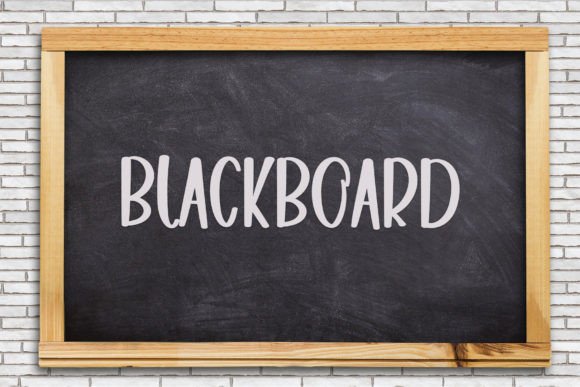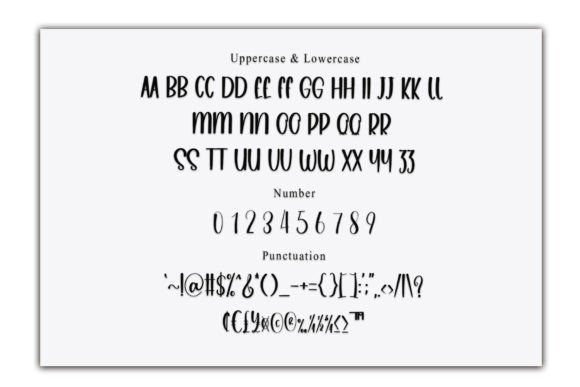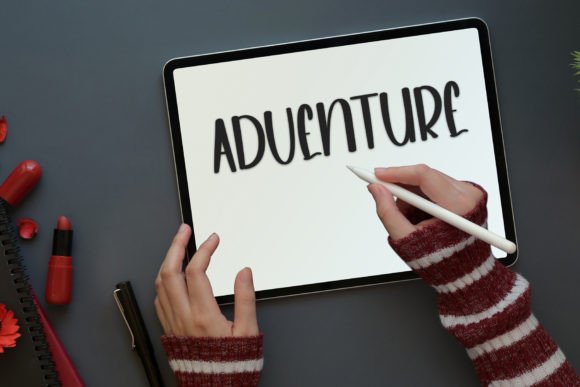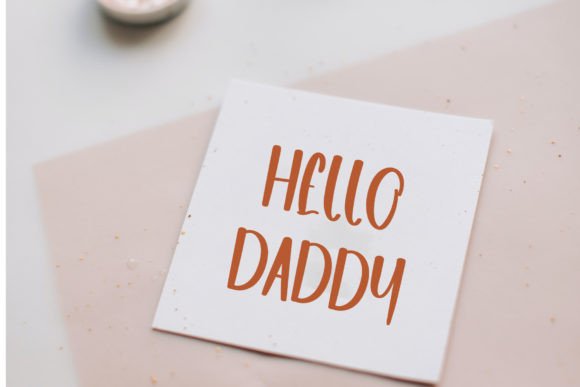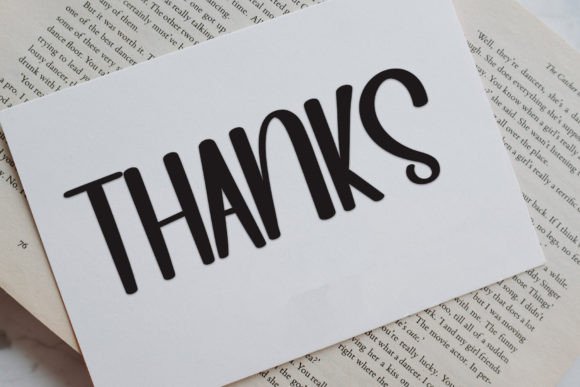
Introducing Farmhouse Font: Elevate Your Creativity with Elegance
Are you a designer, crafter, or DIY enthusiast looking for a font that can add a touch of elegance to your creative projects? Look no further than Farmhouse Font, a fun and handwritten font that is carefully crafted to bring a sense of sophistication to any design. In this article, we’ll explore the features and benefits of Farmhouse Font, and how it can help you turn your creative ideas into stunning works of art.
Farmhouse Font is a unique and charming handwritten font that is designed to bring a touch of elegance to your designs. With its carefully crafted letters and attention to detail, this font is perfect for anyone looking to add a personal touch to their creative projects. Whether you’re working on a DIY project, creating social media graphics for Instagram, or designing calligraphy scripts, Farmhouse Font is the perfect choice.
- Handwritten with care: Farmhouse Font is carefully crafted by hand to ensure that every letter is unique and full of character.
- Elegant and sophisticated: With its flowing lines and delicate curves, Farmhouse Font adds a touch of elegance to any design.
- Versatile: This font is perfect for a wide range of creative projects, from DIY crafts to social media graphics and calligraphy scripts.
Benefits of Using Farmhouse Font
So why choose Farmhouse Font for your creative projects? Here are just a few benefits of using this amazing font:
- Add a personal touch: With Farmhouse Font, you can add a personal touch to your designs and make them stand out from the crowd.
- Elevate your designs: This font is designed to bring a sense of elegance and sophistication to your designs, helping you to create stunning works of art.
- Perfect for DIY projects: Farmhouse Font is ideal for DIY projects, such as crafting, scrapbooking, and woodworking.
- Great for social media: Use Farmhouse Font to create eye-catching social media graphics for Instagram and other platforms.
Need some inspiration for your next creative project? Here are a few ideas to get you started:
- Create a stunning logo: Use Farmhouse Font to create a unique and memorable logo for your business or brand.
- Make a beautiful sign: Design a beautiful sign for your home or business using Farmhouse Font.
- Design social media graphics: Use Farmhouse Font to create eye-catching social media graphics for Instagram and other platforms.
- Create a gorgeous invitation: Design a stunning invitation for a special event or occasion using Farmhouse Font.
Farmhouse Font is a unique and charming handwritten font that is perfect for designers, crafters, and DIY enthusiasts. With its elegant and sophisticated design, this font is ideal for a wide range of creative projects, from DIY crafts to social media graphics and calligraphy scripts. Whether you’re looking to add a personal touch to your designs or elevate your creative ideas into stunning works of art, Farmhouse Font is the perfect choice. So why wait? Download Farmhouse Font today and start creating!